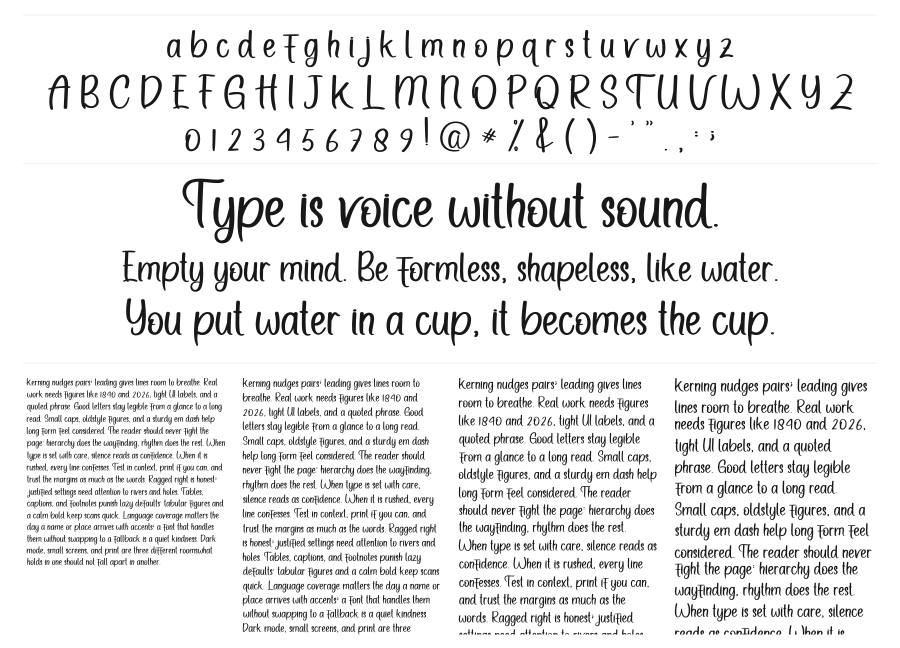
Pink Shadow
by Etik Fatimah · Website
Pink Shadow is a bold casual script with an upright, hand-lettered feel and flowing connected strokes. The mix of looping descenders and thick stems gives it a confident friendliness that sits somewhere between brush lettering and everyday handwriting. It works well at large sizes where its personality can breathe.